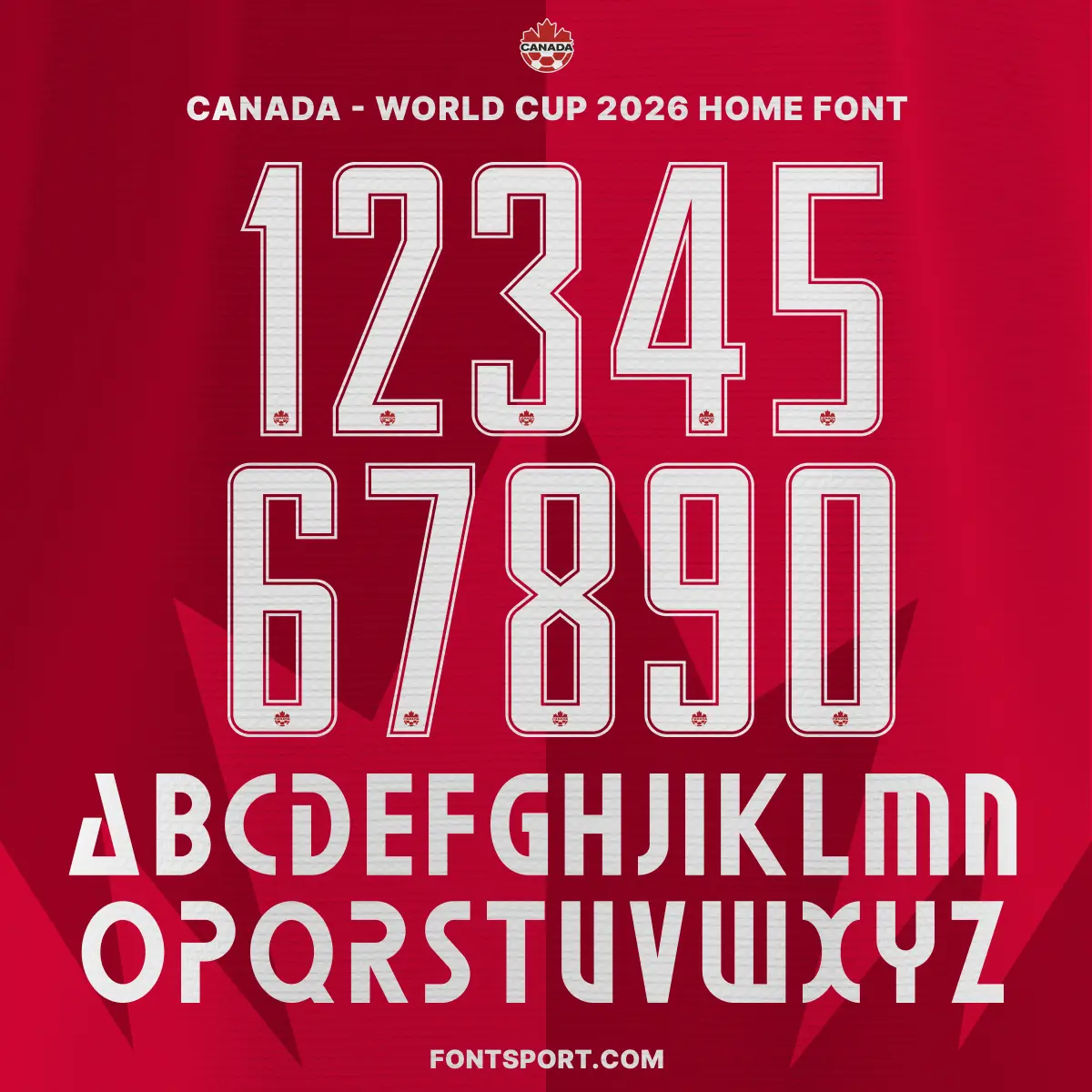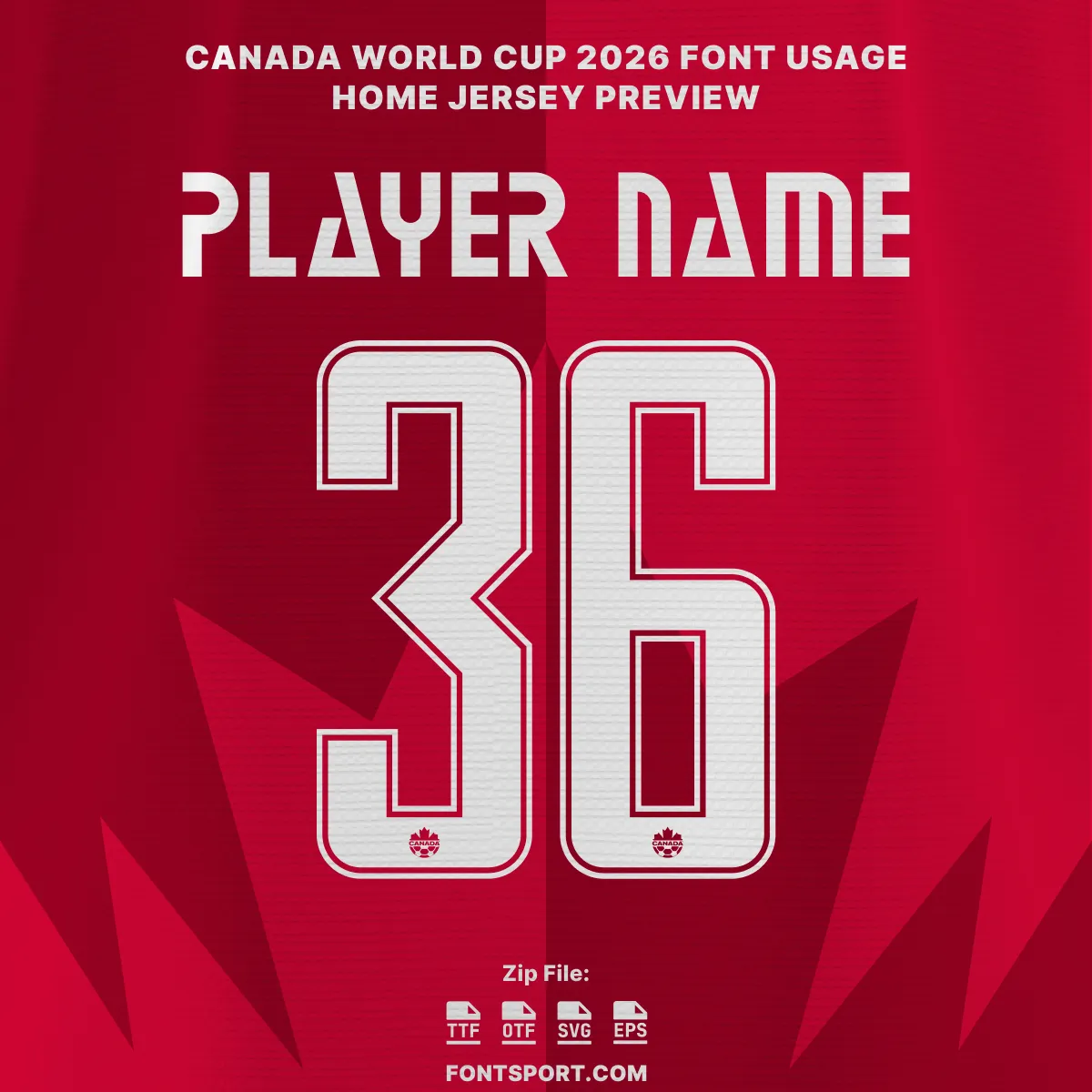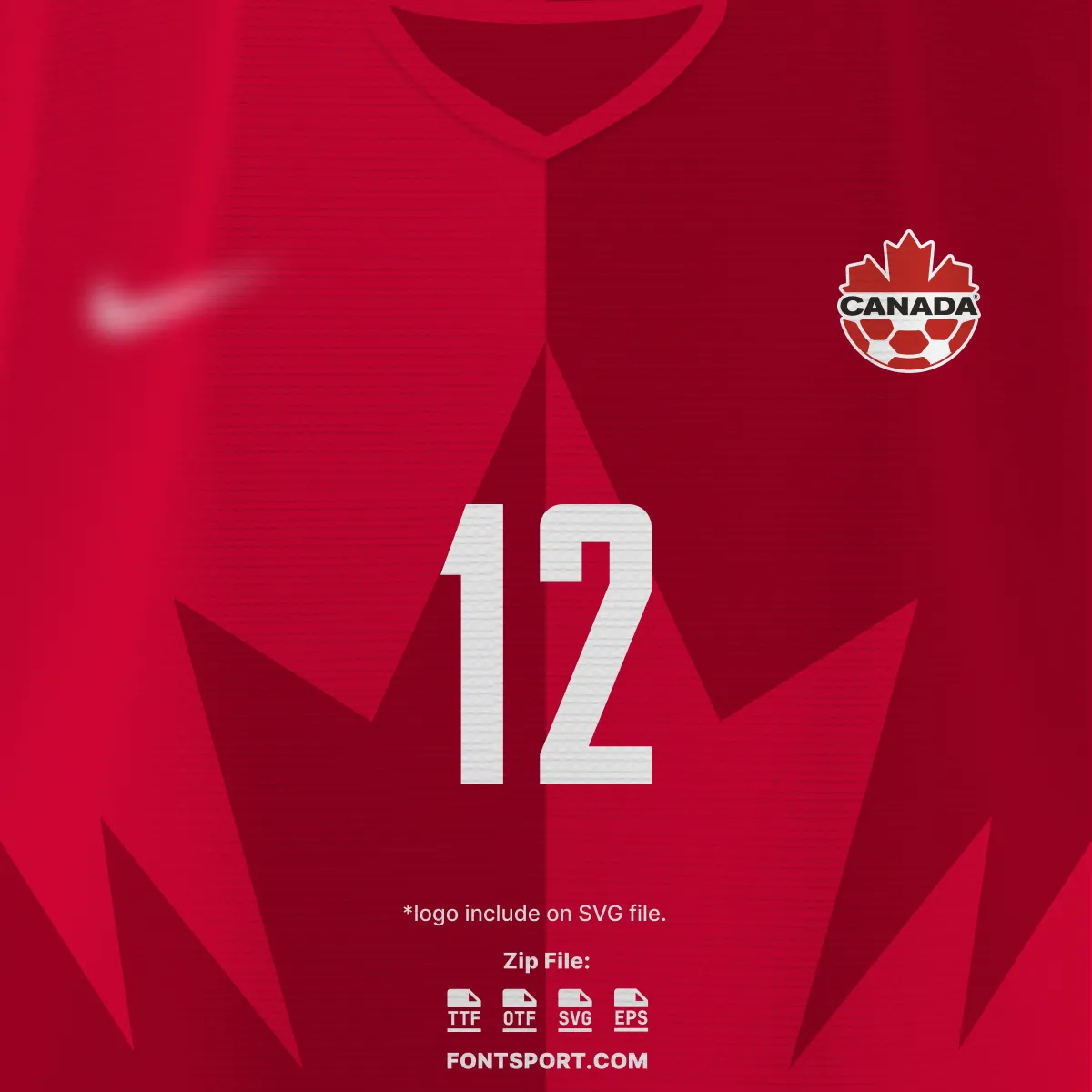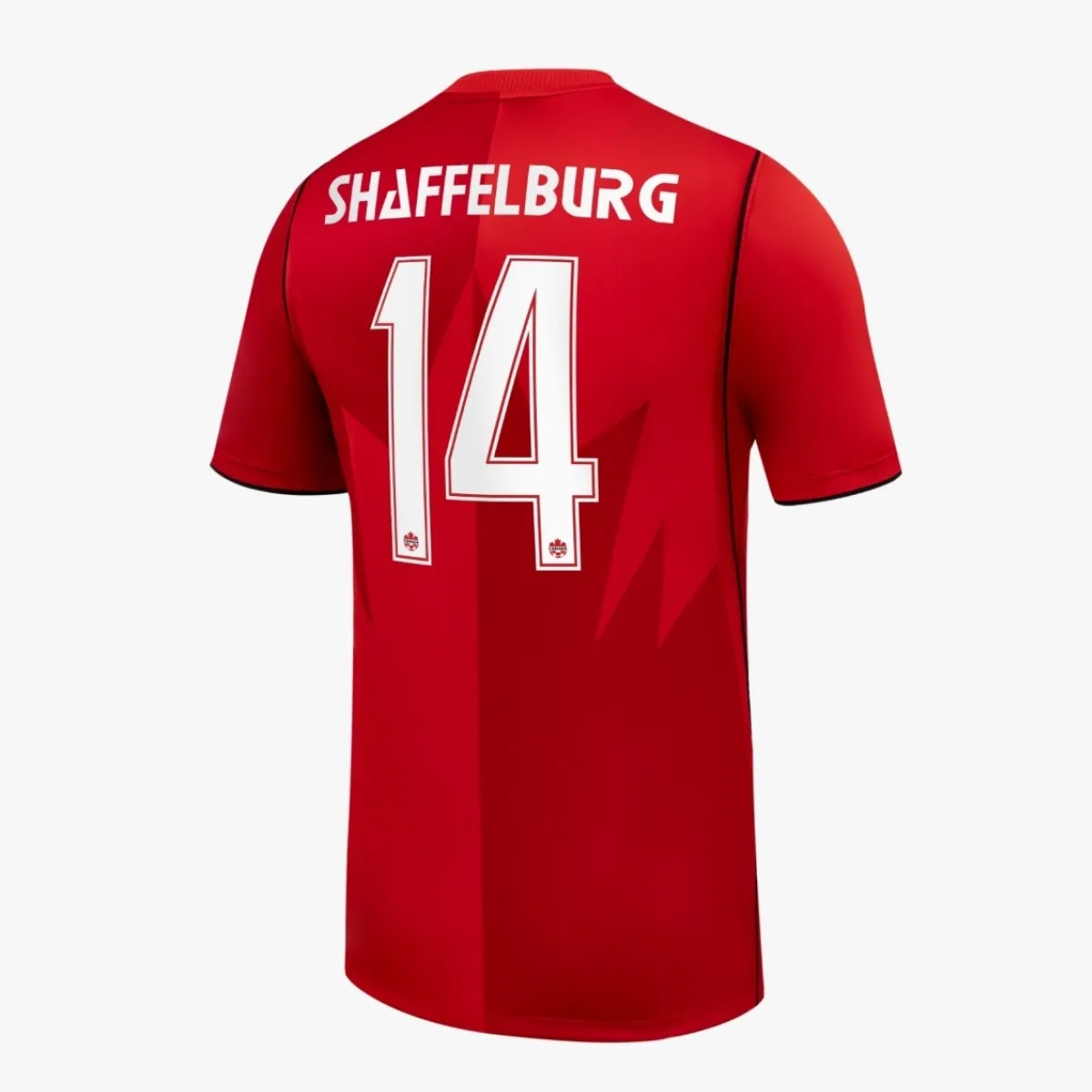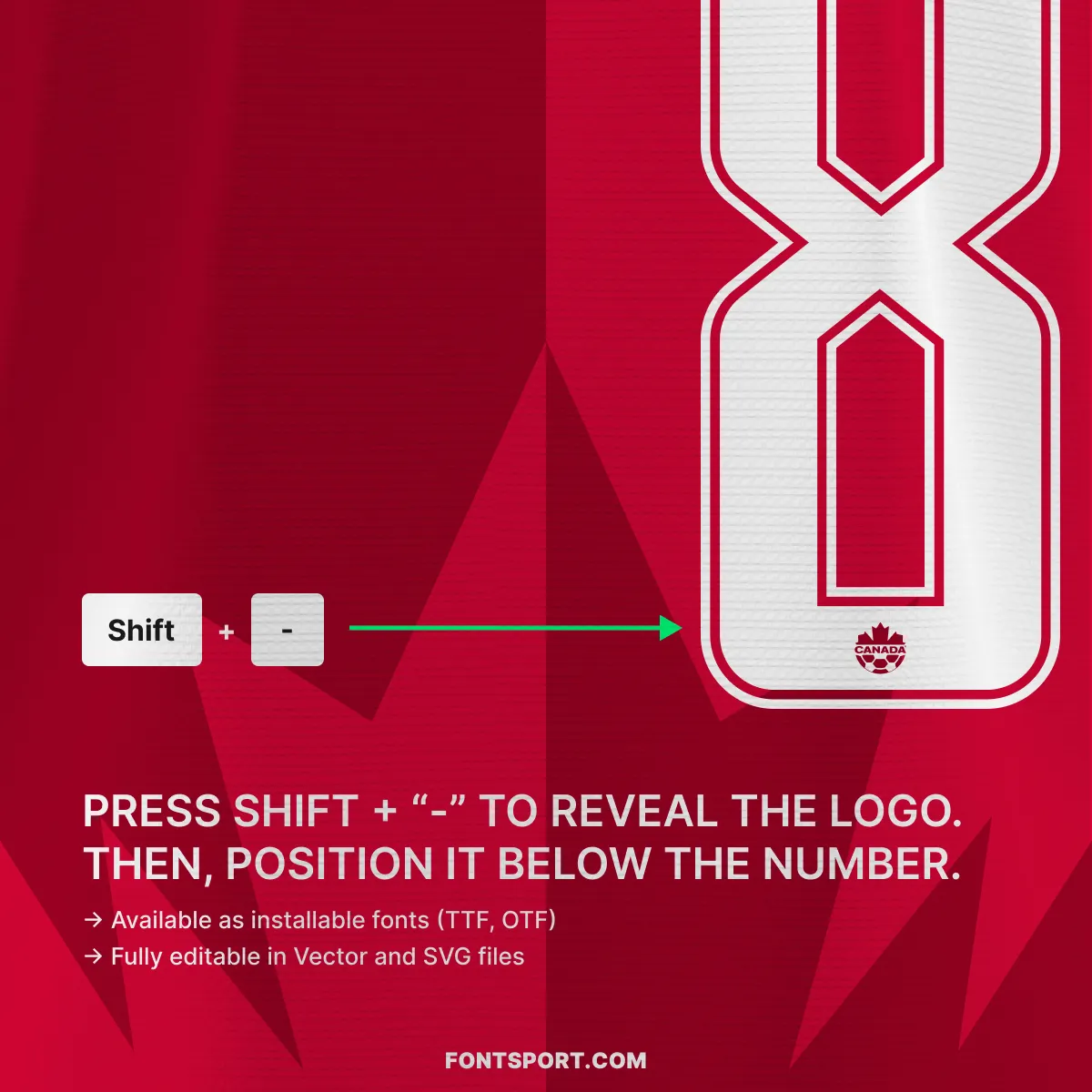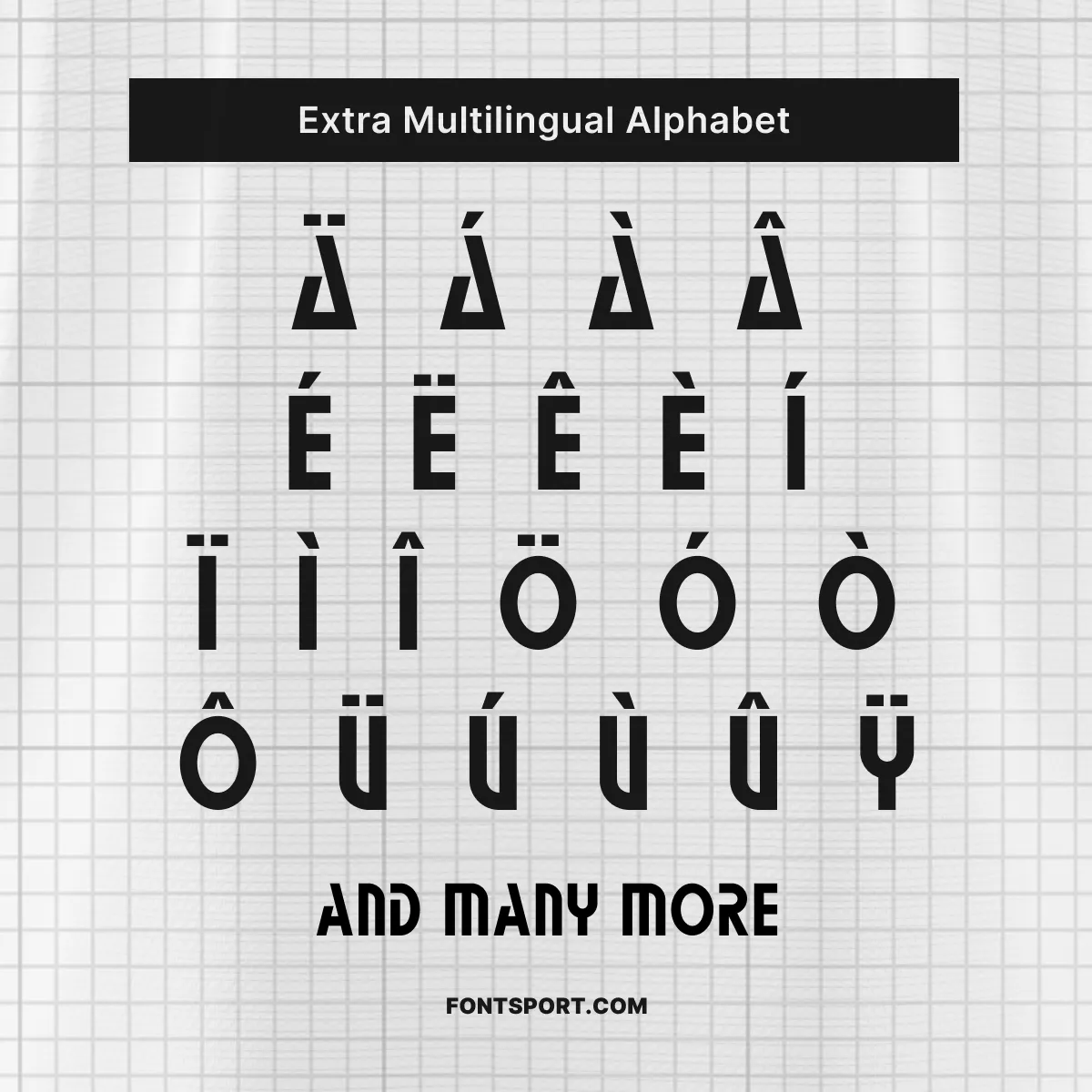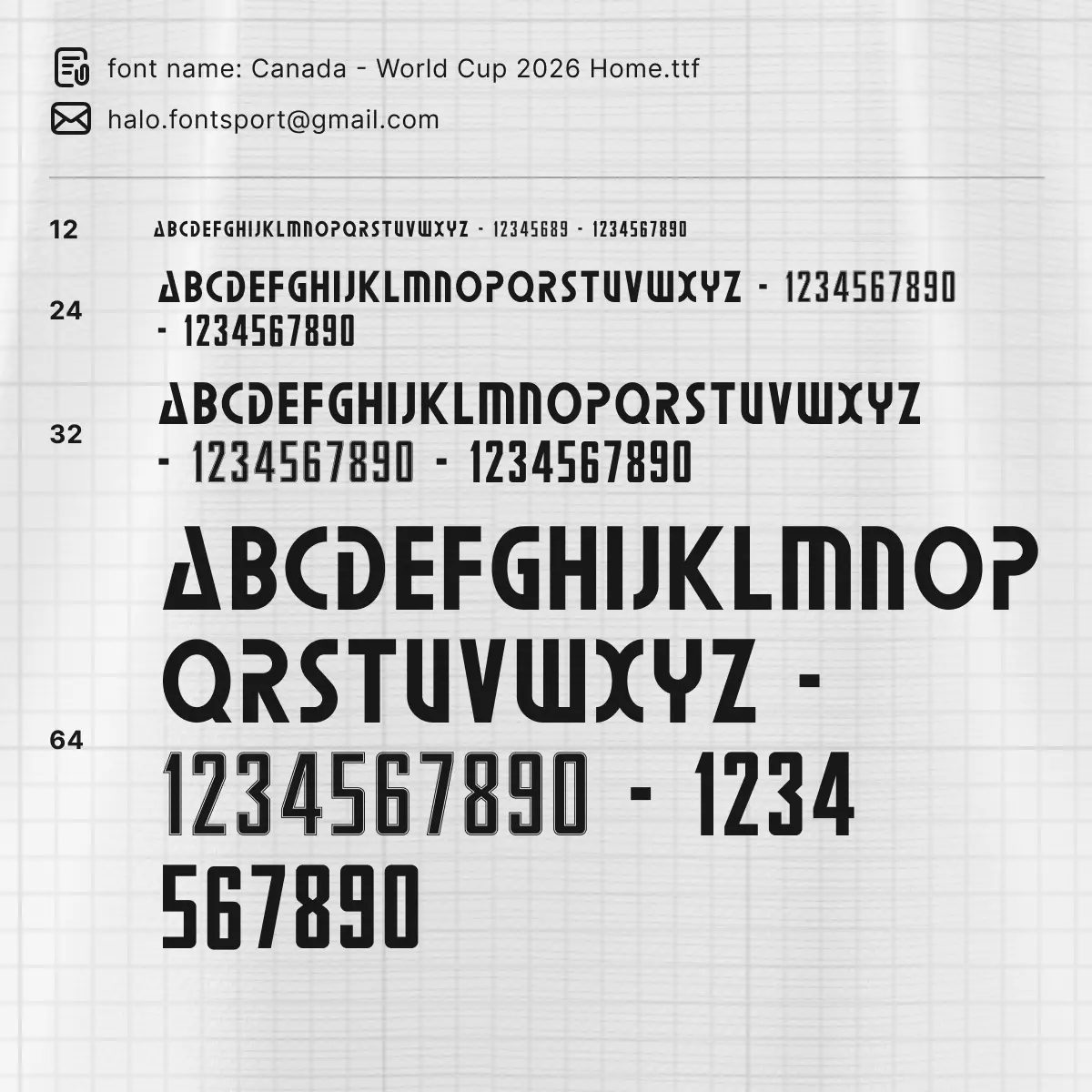
Canada World Cup 2026 Home Font Kit – Authentic FIFA Typeface
The Canada 2026 World Cup font kit captures the sharp, modern lettering style created for Canada’s home identity ahead of FIFA World Cup 2026. As a co-host nation, Canada enters the tournament with a bold visual look, and this home set mirrors that clean match-inspired character for designers, collectors, and football creatives.
Furthermore, the font pairs naturally with the team’s striking red home aesthetic and central maple leaf theme. That makes it ideal for shirt mockups, player name sets, social graphics, and custom fan artwork that needs a confident Canadian tournament feel.
Key Visual Identity of the Font
Typography Style
This typeface has a tall, compact structure with strong vertical balance and crisp inner cuts. As a result, each letter reads clearly from distance while still carrying a custom national-team look.
Number Design
The numerals are narrow, upright, and highly legible. In particular, the number shapes suit back-of-shirt applications, where spacing and clean outlines matter most.
- ✅ Full uppercase A–Z & numbers 0–9 in Canada’s 2026 home style
- ✅ Canada crest/logo glyph element where shown in the product preview
- ✅ Multilingual Latin alphabet with extra diacritic support
This Canada World Cup 2026 Home Font Kit is an independent design resource created for fans, mockup artists, and football designers. However, it is built to closely reflect the structure, spacing, and visual rhythm seen in Canada’s 2026 home shirt lettering.